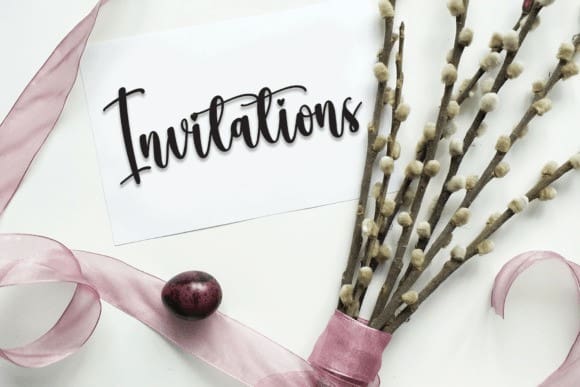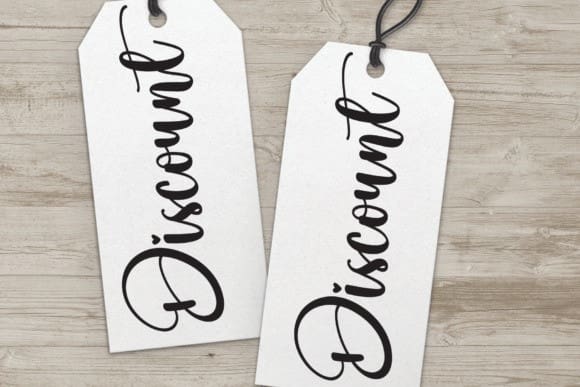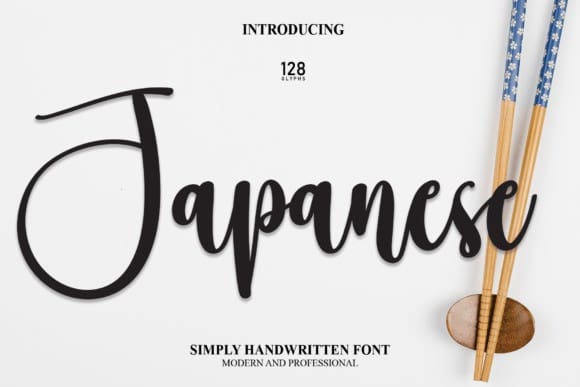
Japanese Script Typeface
Japanese Script Font, perfect for wall displays, wedding invitations, social media post logos, advertisements, product packaging, product designs, labels, photography, watermarks, invitations, stationery, and any project that requires a handwritten taste.